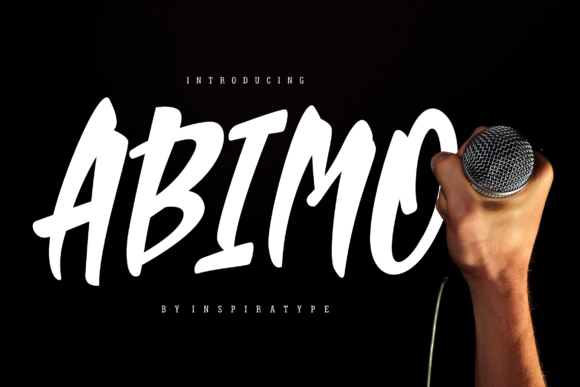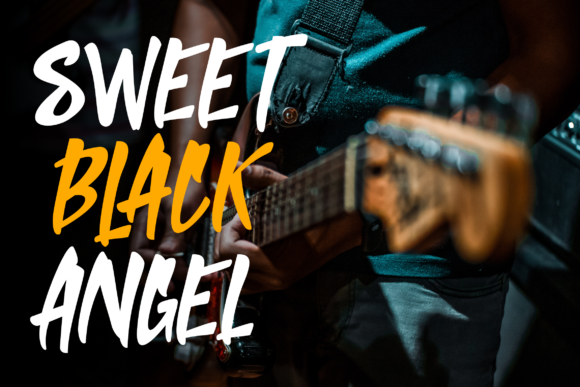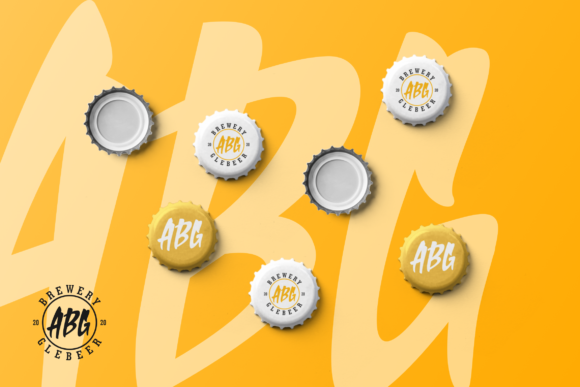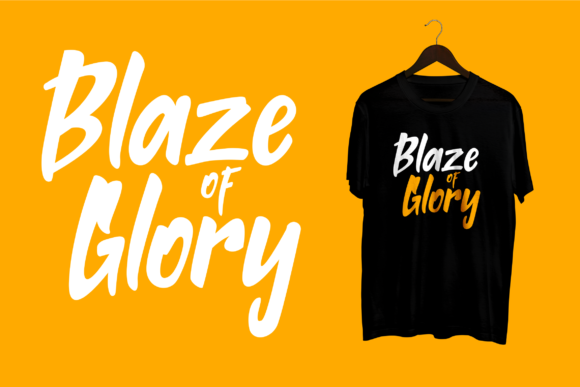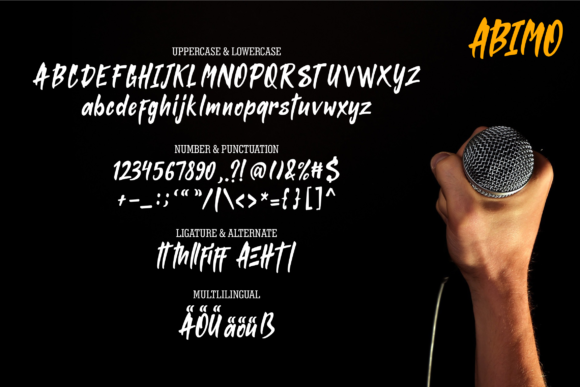
Abimo Font
About Abimo Font
Abimo embodies fun, quirkiness and authenticity. This enchanting handwritten font will turn any creative idea into a true standout!